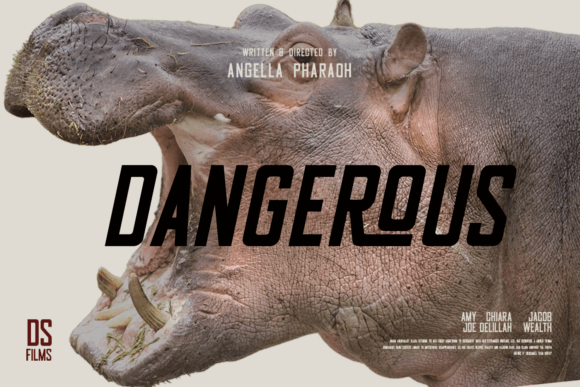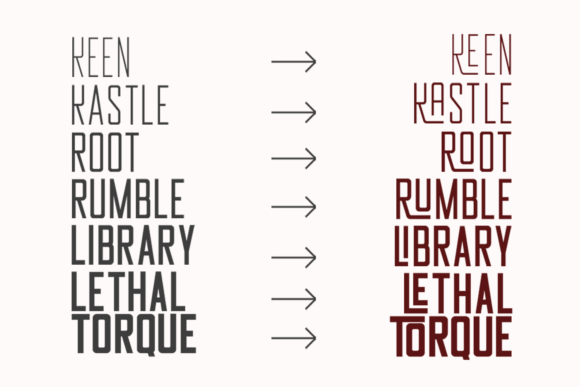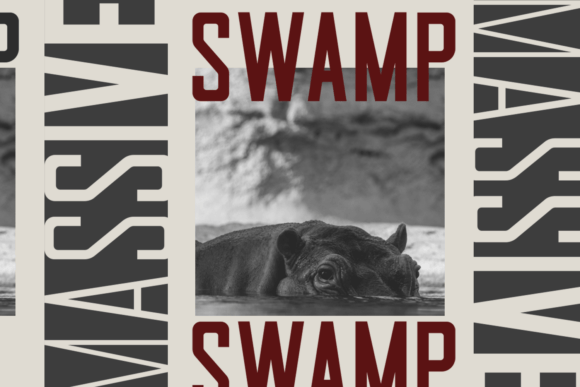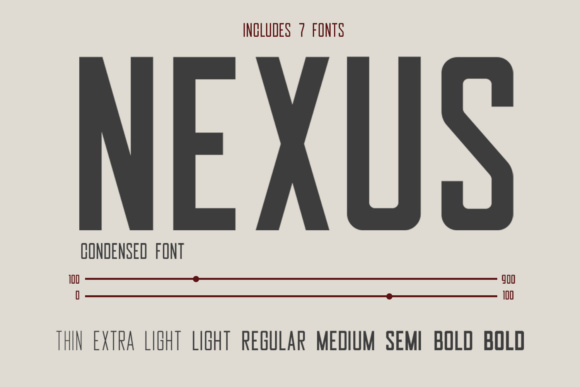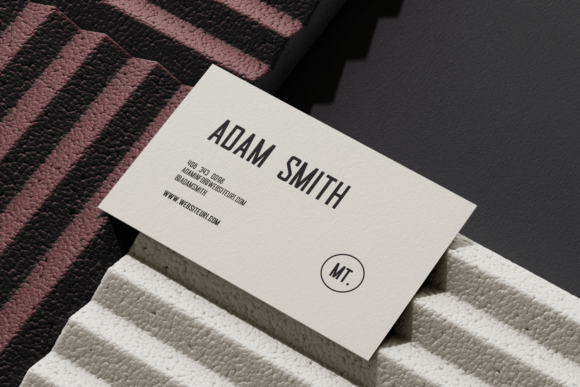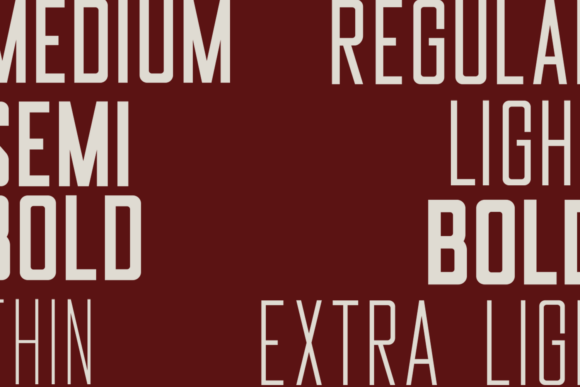
Introduction to Marvelous Font
Have you ever stared at a blank canvas, searching for the perfect font to bring your creative project to life? The pressure to find a typeface that not only complements your design but also conveys the message you want to share can be overwhelming. This is where Marvelous Font comes in – a game-changing, high-quality typeface that’s about to revolutionize the way you approach your next design challenge.
| 👤 Author | Umitype |
Whether you’re a seasoned designer or a newcomer to the world of creative projects, Marvelous Font is an invaluable resource that will take your work to the next level. Its sleek, condensed design makes it an ideal choice for tight spaces, while its 12 unique styles offer the flexibility you need to find the perfect tone for your project. Plus, with a transparent background, you can seamlessly integrate it into your design without any distractions.
Key Features of Marvelous Font
- High-quality design for creative projects, suitable for a wide range of applications including logos, graphics, and typography.
- Design resource with a transparent background, making it easy to incorporate into any design project without visual clutter.
- Unique characteristics include intricate details and a sophisticated aesthetic, making it an ideal choice for luxury and high-end branding.
Honest Review: Marvelous Font
I recently had the chance to experiment with the Marvelous Font, and I must say it’s been a game-changer for my creative projects. The high quality of the font is immediately noticeable, making it a great addition to any design resource.
- The font is incredibly versatile and can be used for a wide range of creative projects, from logos to posters.
- The transparent background is a nice touch, allowing for seamless integration with other design elements.
- The font’s modern design makes it perfect for trendy and stylish projects.
One potential limitation is the limited character set, which may not be suitable for longer texts or professional documents.
Overall, I’m thoroughly impressed with the Marvelous Font. Its high quality, versatility, and free download option make it a must-have design resource for any creative project. While it may not be perfect for all applications, it’s definitely a great addition to any designer’s toolkit.
How to Use Marvelous Font
Tips for Getting the Most Out of Marvelous Font
Use Marvelous Font to add a creative touch to your project.
Experiment with different font sizes and styles to achieve the desired effect.
Combine Marvelous Font with other design elements to create a visually appealing design.
Use Marvelous Font for:
1. Social media graphics.
2. Brochures and flyers.
3. Business cards and resumes.
4. Web design and development.